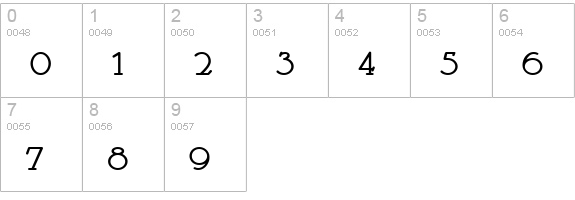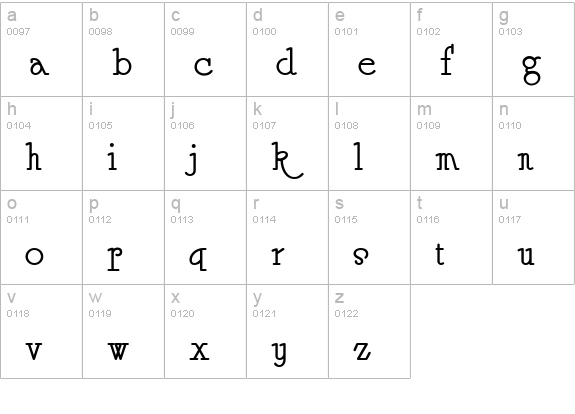
WHGSimpaticoNF Bold Font Details
WHGSimpaticoNF Bold is a strong, high-contrast variant in the WHGSimpaticoNF typeface family \xE2\x80\x94 well suited to headlines, attention-grabbing titles, and strong calls-to-action.
WHGSimpaticoNF Bold font is a perfect blend of elegance and modernity. This bold typeface exudes confidence and strength, making it an ideal choice for any design project that demands attention. Whether you're creating eye-catching headlines, striking logos, or impactful posters, this font will effortlessly enhance the visual appeal of your work. With its clean lines and smooth curves, WHGSimpaticoNF Bold font is easy on the eyes, ensuring readability in both print and digital mediums. Its bold weight adds a touch of boldness and impact, making it stand out among other fonts. This font is versatile and can be used for a wide range of design applications, from branding and advertising to packaging and web design. One of the best features of WHGSimpaticoNF Bold font is that it is freely available to download at FontsMarket.com. This means that you can easily access this stunning font without any cost. By downloading this font, you not only save money but also have the opportunity to add a professional touch to your designs. WHGSimpaticoNF Bold font is compatible with various design software and can be used on both Windows and Mac operating systems. Its extensive character set includes uppercase and lowercase letters, numerals, punctuation marks, and special characters, allowing you to fully express your creativity. In summary, WHGSimpaticoNF Bold font is a visually striking and versatile typeface that is sure to make a lasting impression. Its clean design, bold weight, and free availability make it a must-have for designers and creatives alike. Download WHGSimpaticoNF Bold font today from FontsMarket.com and elevate your designs to new heights.